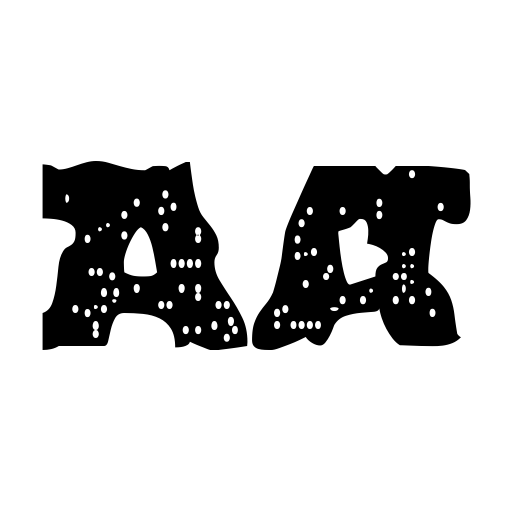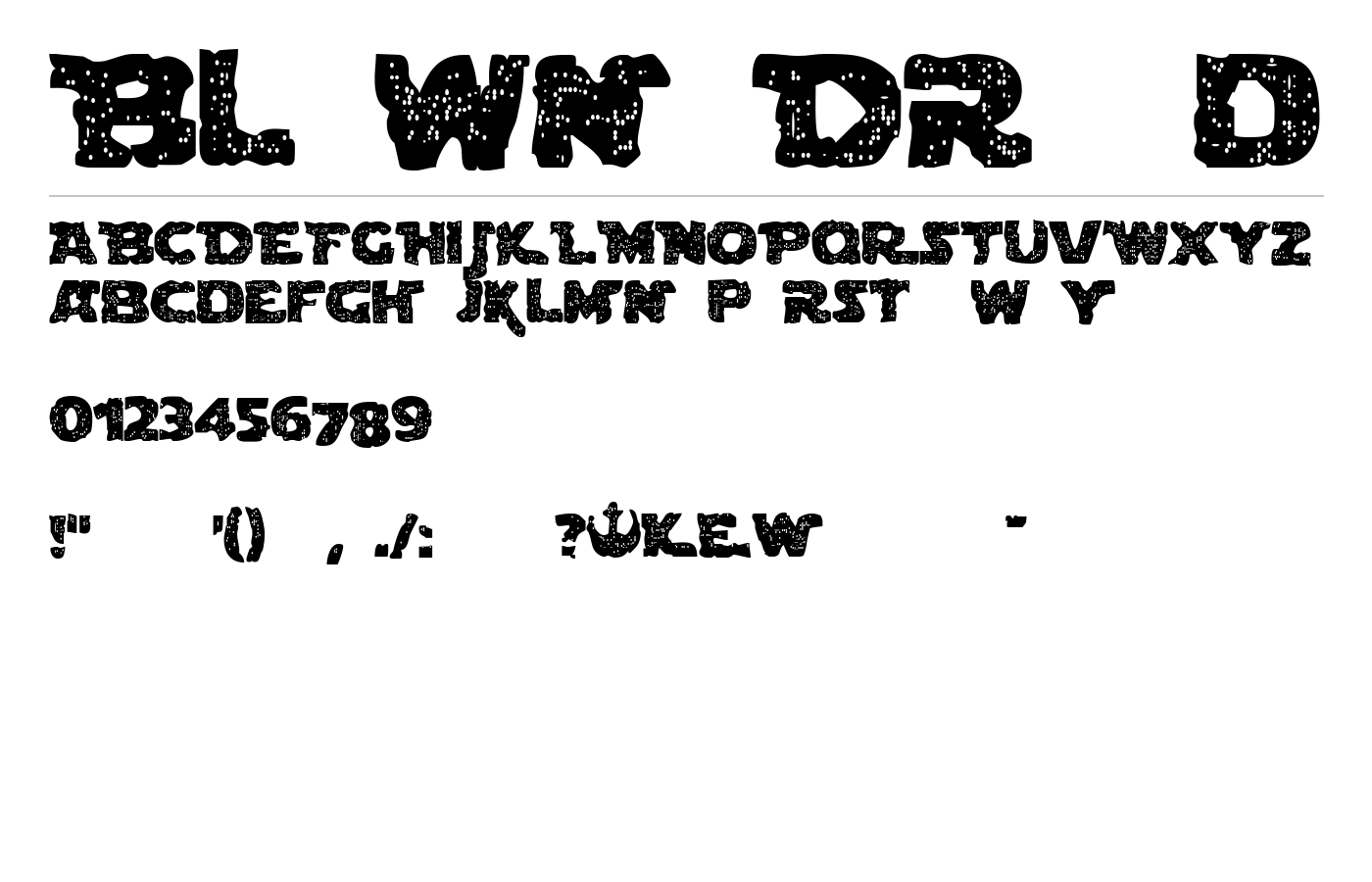
Blown Droid is a bold, heavy slab serif font with a playful and rugged character, featuring thick, blocky letterforms punctuated by irregular textured dots that create a distressed, worn effect. Its strong presence and unique grunge details make it ideal for eye-catching headlines, posters, and edgy branding that aims to stand out with a vintage yet quirky personality. This font works best in creative projects where a striking, unconventional look is desired over traditional readability.
Blown Droid Font
About Blown Droid Font